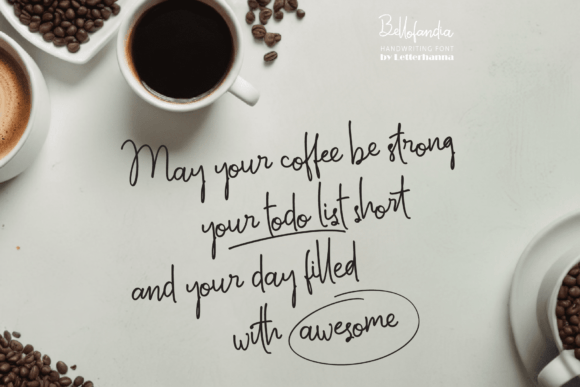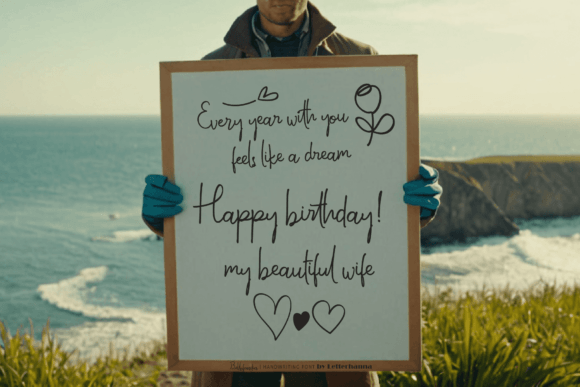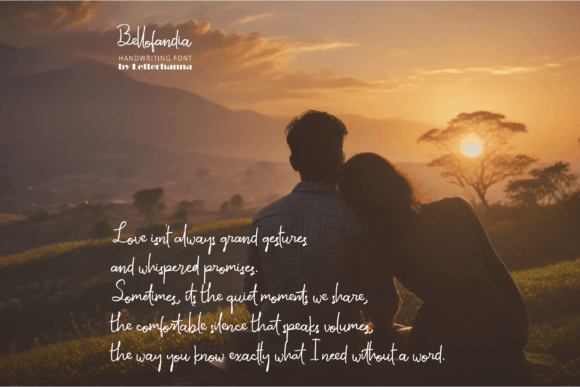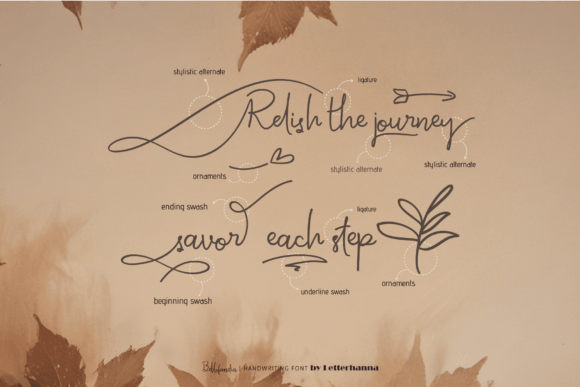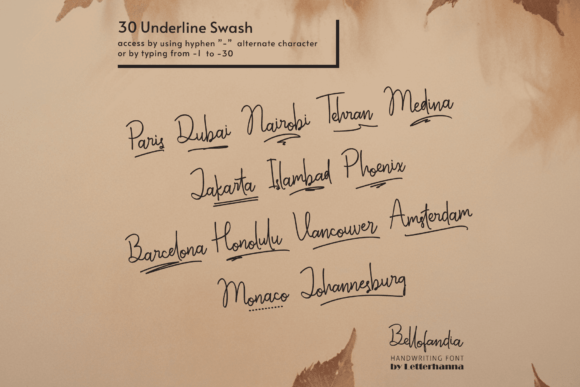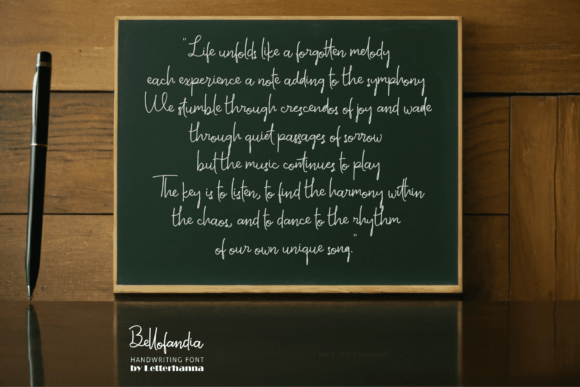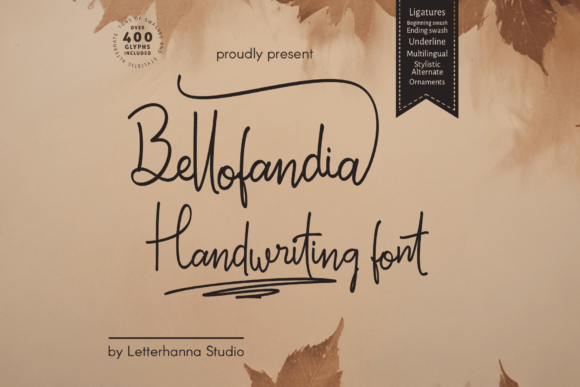
Unleash Your Inner Storyteller with Bellofandia Font
In the world of typography, few fonts manage to capture the essence of elegance and whimsy as effortlessly as Bellofandia. This captivating new handwriting script font is inspired by the beauty of calligraphy, yet infused with a playful charm that sets it apart from more traditional fonts. Whether you’re a designer looking for a unique touch or a crafter seeking to add personality to your projects, Bellofandia is the perfect choice.
The Inspiration Behind Bellofandia
Bellofandia’s design is rooted in the elegance of calligraphy, a art form that has been perfected over centuries. Calligraphy, with its flowing lines and precise lettering, evokes a sense of sophistication and luxury. However, Bellofandia’s creators wanted to push the boundaries of traditional calligraphy by adding a touch of whimsy and playfulness. The result is a font that dances across your designs with effortless grace, making it perfect for projects that demand a touch of personality.
The Characteristics of Bellofandia
So, what makes Bellofandia so special? Here are a few key characteristics that set it apart:
- Flowing Lines: Bellofandia’s lines are smooth and flowing, giving it a natural, handwritten feel that’s perfect for projects that require a personal touch.
- Playful Flourishes: Bellofandia’s flourishes are playful and whimsical, adding a touch of magic to your words.
- Elegant Lettering: Each letter in Bellofandia is carefully crafted to evoke the elegance of calligraphy, making it perfect for projects that demand sophistication.
Perfect for Handwritten Notes and Wedding Invitations
Bellofandia is particularly well-suited for handwritten notes and wedding invitations. Its elegant lettering and flowing lines make it perfect for:
- Wedding Invitations: Add a touch of sophistication and romance to your wedding invitations with Bellofandia.
- Handwritten Notes: Make your handwritten notes stand out with Bellofandia’s playful and elegant lettering.
- Stationery: Create beautiful stationery that reflects your personality with Bellofandia.
Ideal for Creative Projects
Bellofandia is not just limited to handwritten notes and wedding invitations. Its playful and elegant design makes it perfect for a wide range of creative projects, including:
- Graphic Design: Add a touch of personality to your graphic designs with Bellofandia.
- Branding: Create a unique brand identity with Bellofandia’s elegant and playful lettering.
- Crafting: Make your crafting projects stand out with Bellofandia’s whimsical and elegant design.
Unleash Your Creativity with Bellofandia
Bellofandia is more than just a font – it’s a tool for creative expression. With its elegant lettering and playful flourishes, Bellofandia gives you the freedom to compose narratives that capture the imagination. Whether you’re a designer, crafter, or simply someone who loves to write, Bellofandia is the perfect choice for anyone looking to add a touch of personality to their projects.
| Font Name | Bellofandia Font |
| Author | letterhanna |
In conclusion, Bellofandia is a captivating new handwriting script font that’s perfect for designers, crafters, and anyone looking to add a touch of personality to their projects. With its elegant lettering, flowing lines, and playful flourishes, Bellofandia is the perfect choice for handwritten notes, wedding invitations, and creative projects that demand a touch of sophistication and whimsy. So why wait? Unleash your inner storyteller with Bellofandia and compose narratives that capture the imagination.